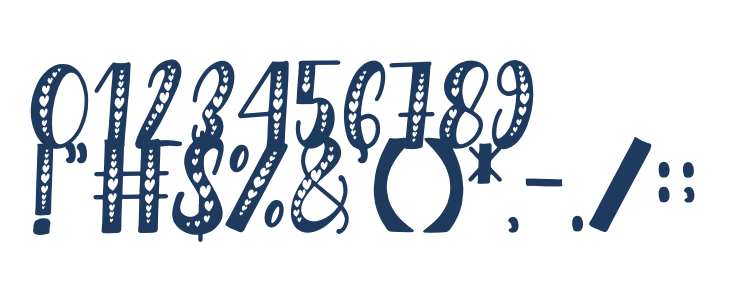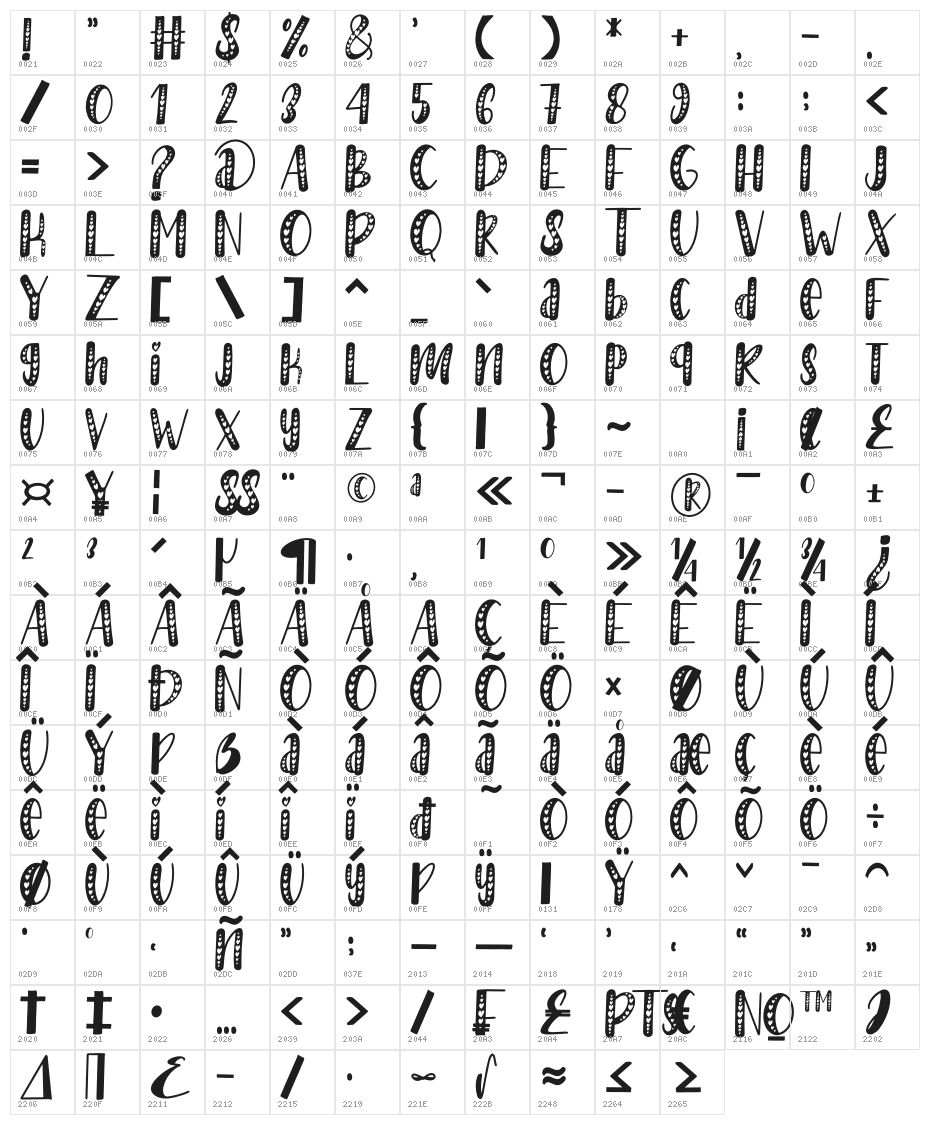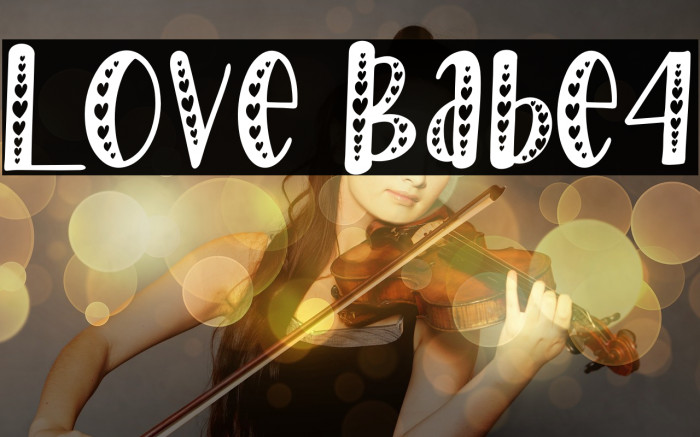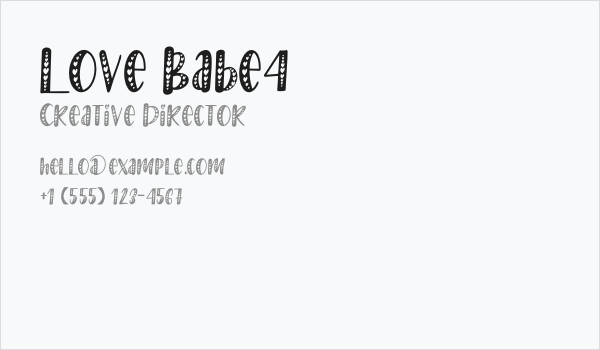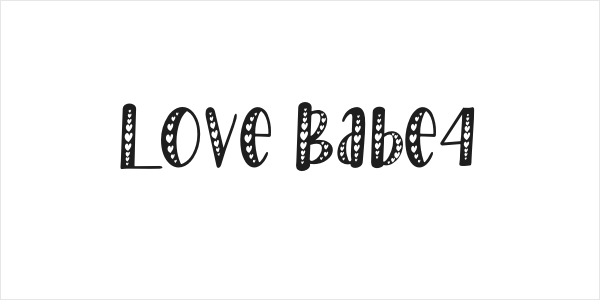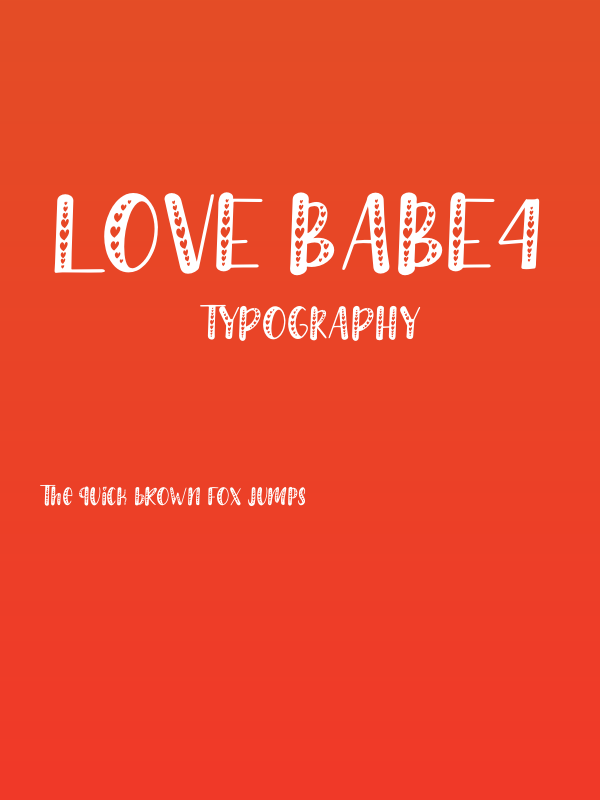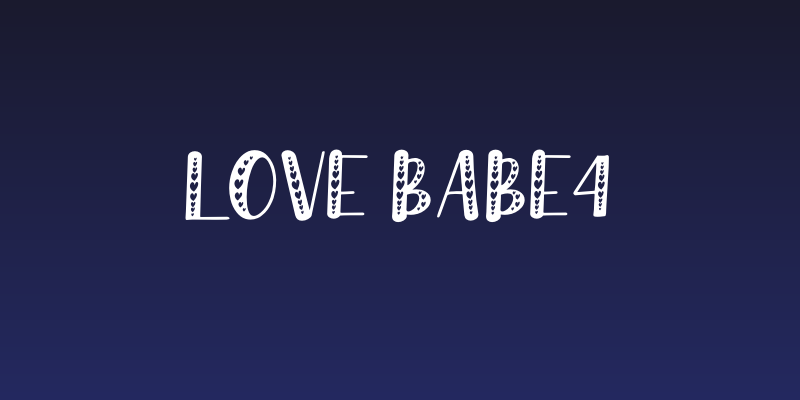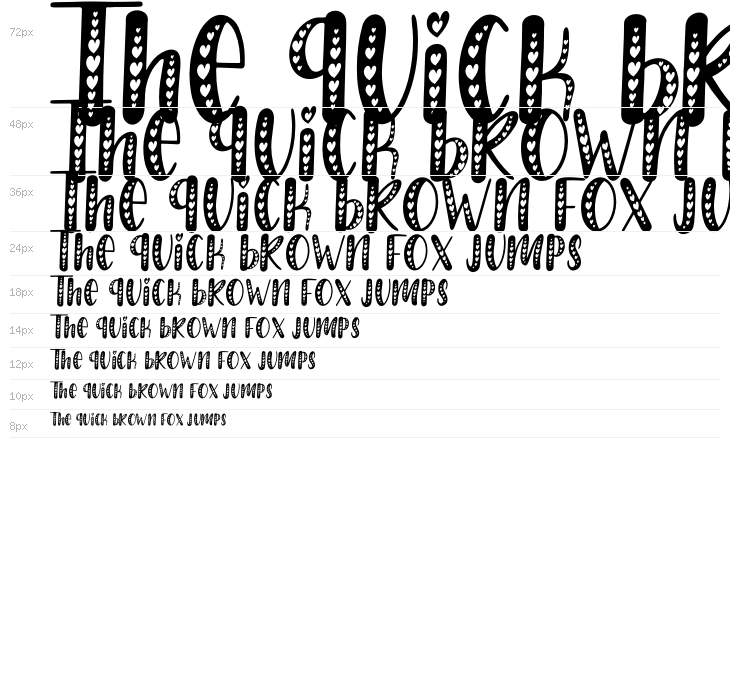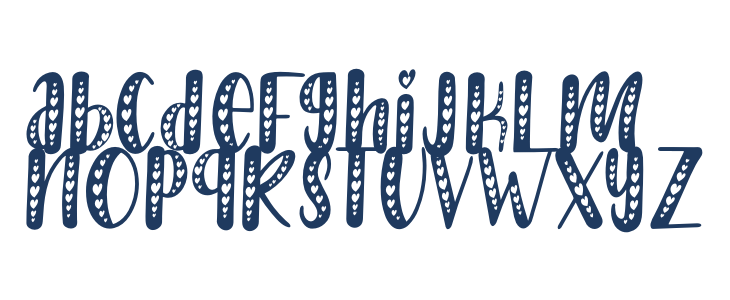
Love Babe4 Font
Love Babe4 Description
This playful and decorative font features bold, rounded letters filled with heart motifs, creating a whimsical and romantic aesthetic. The uppercase and lowercase letters maintain a consistent style, with smooth curves and a slightly informal feel. The numbers and special characters follow the same design, making the font cohesive and versatile. The heart-filled design adds a unique touch, making it ideal for projects that require a fun and loving vibe. The font's boldness ensures readability while the decorative elements provide a distinctive flair.
| Use Case | Headlines, Logos, Invitations |
| Proposed Projects | Ideal for Valentine's Day cards, wedding invitations, love-themed posters, and playful branding projects. |